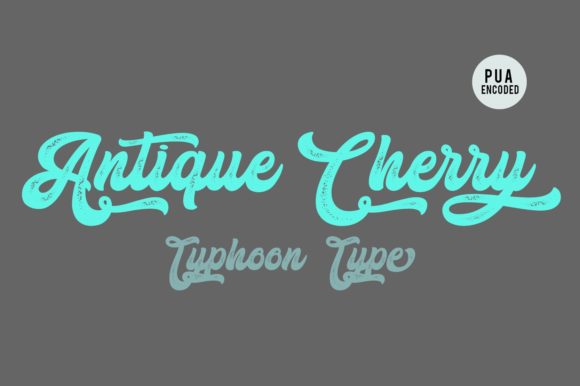
Discover the Charm of Antique Cherry Font: A Playful Vintage Script
Are you a designer or crafter looking for a unique and eye-catching font to add to your creative projects? Look no further than the Antique Cherry Font, a vintage script with an incredibly playful style that’s sure to capture the hearts of audiences everywhere.
The Story Behind Antique Cherry Font
Antique Cherry Font is a carefully crafted typeface that draws inspiration from the classic scripts of the past. Its origins are rooted in traditional calligraphy, with a modern twist that gives it a fresh and playful feel. The font’s creator aimed to evoke the sense of nostalgia and whimsy that comes with vintage designs, while still maintaining a level of sophistication and elegance.
What Makes Antique Cherry Font So Special?
So, what sets Antique Cherry Font apart from other typefaces? Here are just a few of its standout features:
• Playful Swashes and Flourishes: Antique Cherry Font boasts an impressive array of swashes and flourishes that add a touch of drama and flair to any design. These elegant extensions can be used to create beautiful connections between words, or as standalone decorative elements.
• Vintage Charm: The font’s vintage inspiration gives it a unique, distressed look that’s perfect for creating designs that evoke a sense of nostalgia or old-world charm.
• Highly Legible: Despite its ornate and decorative nature, Antique Cherry Font remains highly legible, making it suitable for use in a wide range of applications, from headings and titles to body text.
• Extensive Character Set: The font includes a comprehensive character set, with support for multiple languages and a range of special characters.
Using Antique Cherry Font in Your Designs
Antique Cherry Font is an incredibly versatile typeface that can be used in a wide range of design applications. Here are just a few ideas to get you started:
• Wedding Invitations and Stationery: The font’s elegant, cursive script makes it perfect for wedding invitations, save-the-dates, and other formal stationery.
• Branding and Packaging: Antique Cherry Font can add a touch of sophistication and whimsy to your brand’s packaging and marketing materials.
• Signage and Displays: The font’s bold, eye-catching style makes it ideal for use in signage, displays, and other large-format applications.
• Digital Media: Antique Cherry Font can also be used in digital media, such as social media graphics, email headers, and website titles.
Tips for Getting the Most Out of Antique Cherry Font
To get the most out of Antique Cherry Font, here are a few tips to keep in mind:
• Experiment with Swashes and Flourishes: Don’t be afraid to get creative with the font’s swashes and flourishes. Experiment with different combinations to find the perfect look for your design.
• Mix and Match with Other Fonts: Antique Cherry Font pairs beautifully with a range of other typefaces. Try combining it with a clean sans-serif font for a striking contrast.
• Pay Attention to Kerning and Tracking: As with any font, it’s essential to pay attention to kerning and tracking to ensure that your text looks professional and polished.